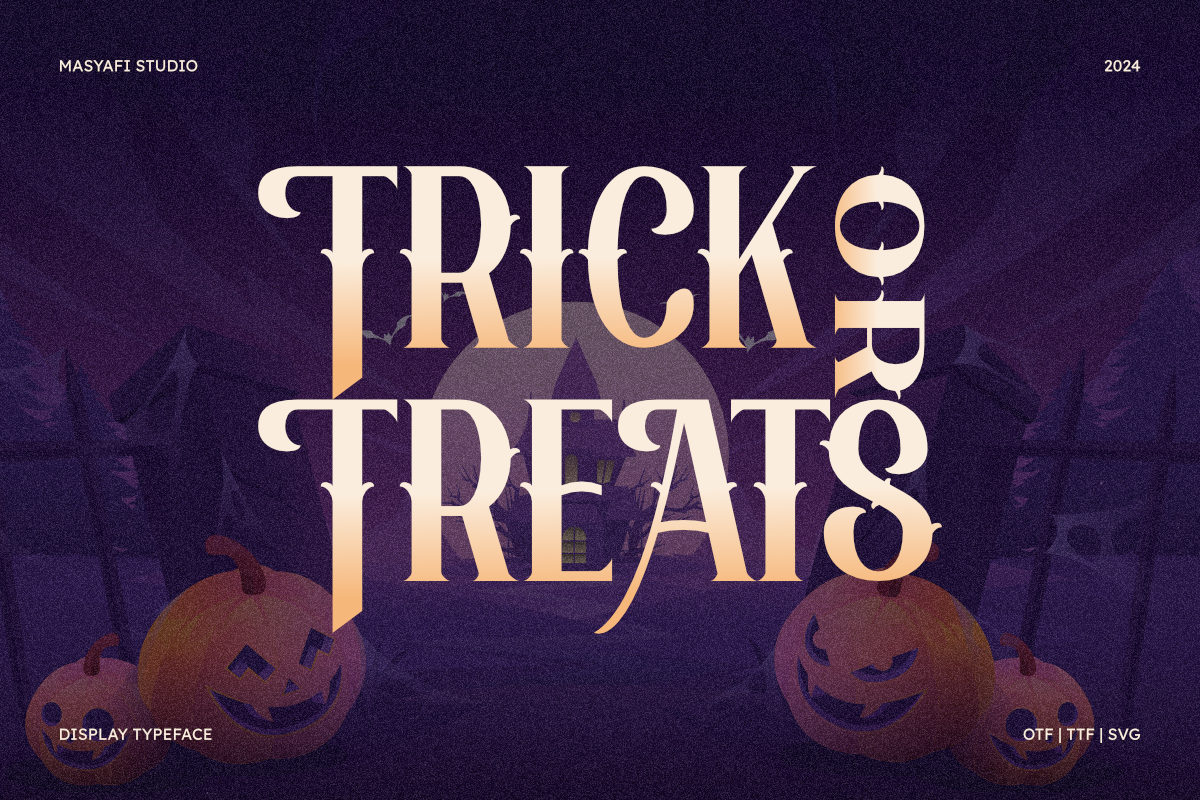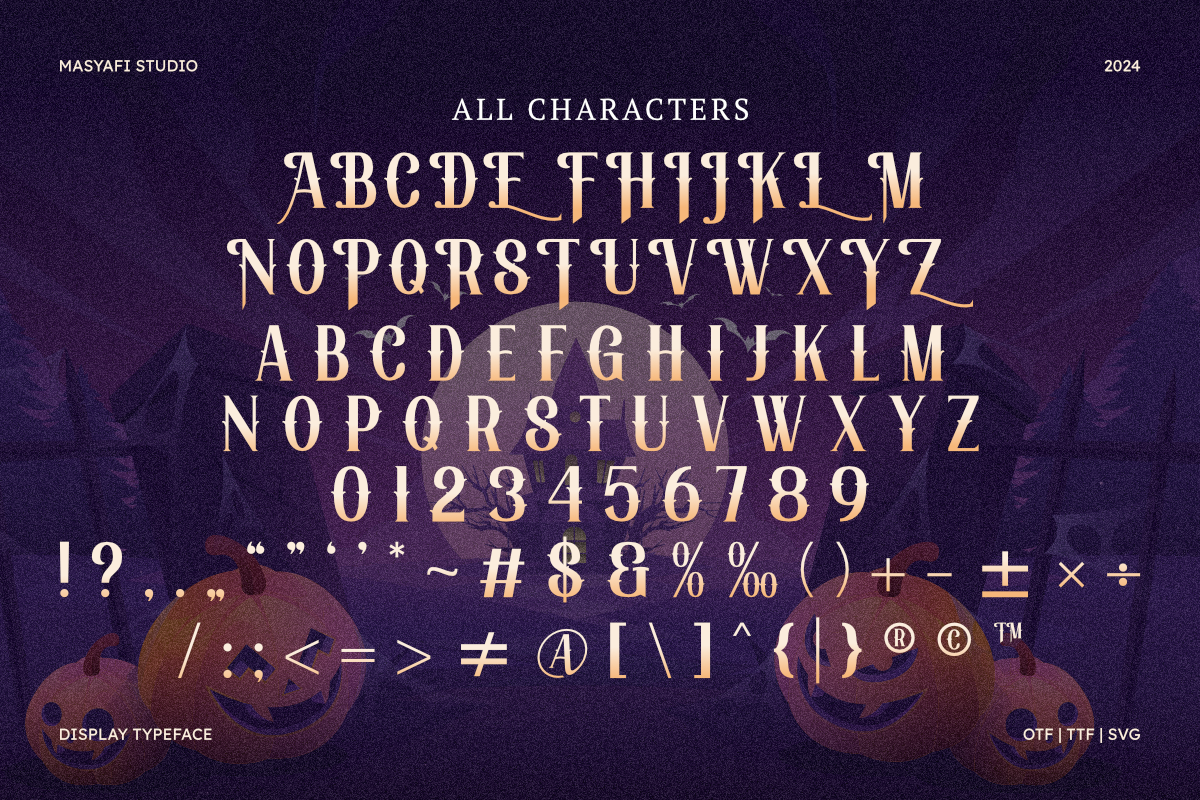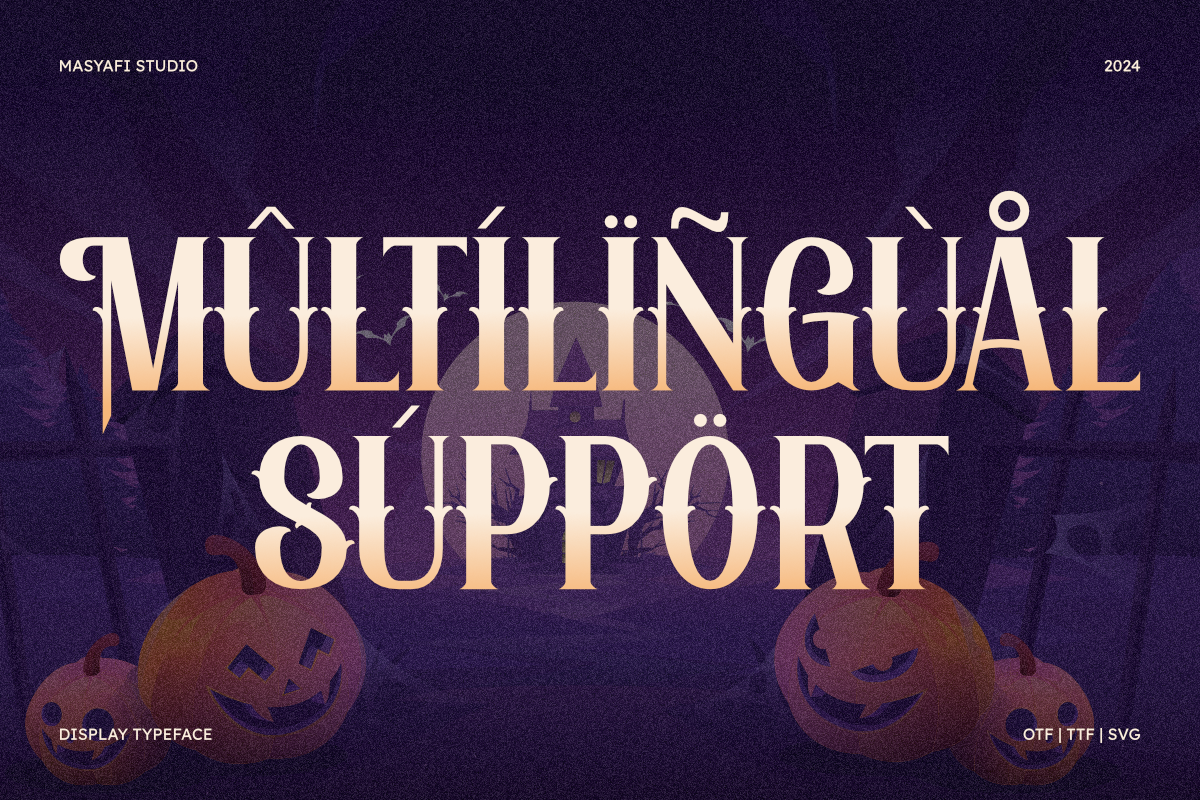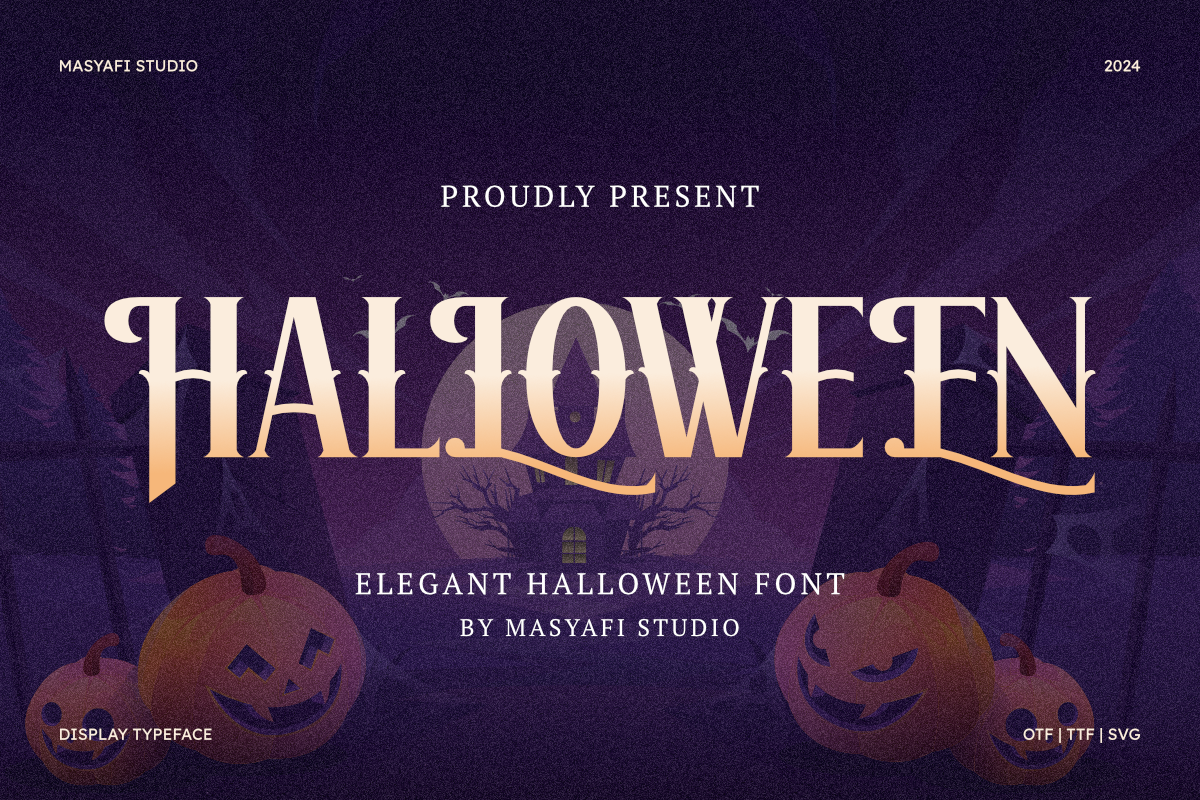
Halloween - Elegant Halloween Font
Halloween is a spooky elegant halloween font. font inspired by Halloween design typography. This font is perfect for apparel, DIY and crafts, posters, vinyl, stickers, titles, labels, logos, banners, social media, overlays, Cricut, Canva and many other creative ideas.